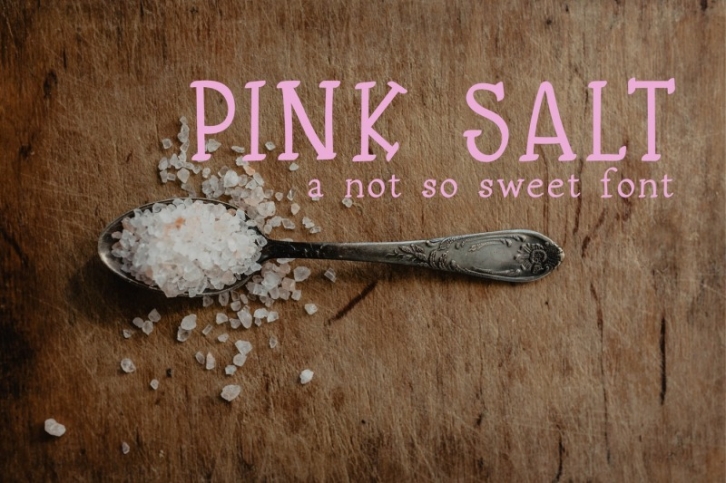
Pink Salt: A Not So Sweet Font Download
Pink Salt is a simple, serif font that is great for pretty much everything. Use this font for blogs, thank you tags for products you sell, party invitations, t-shirt designs and more!